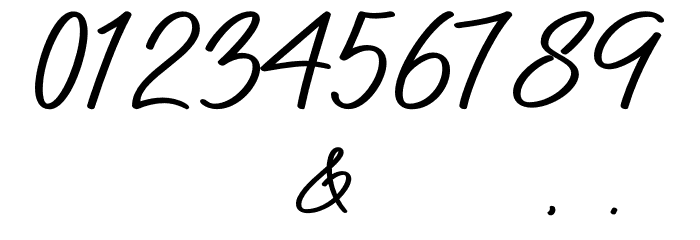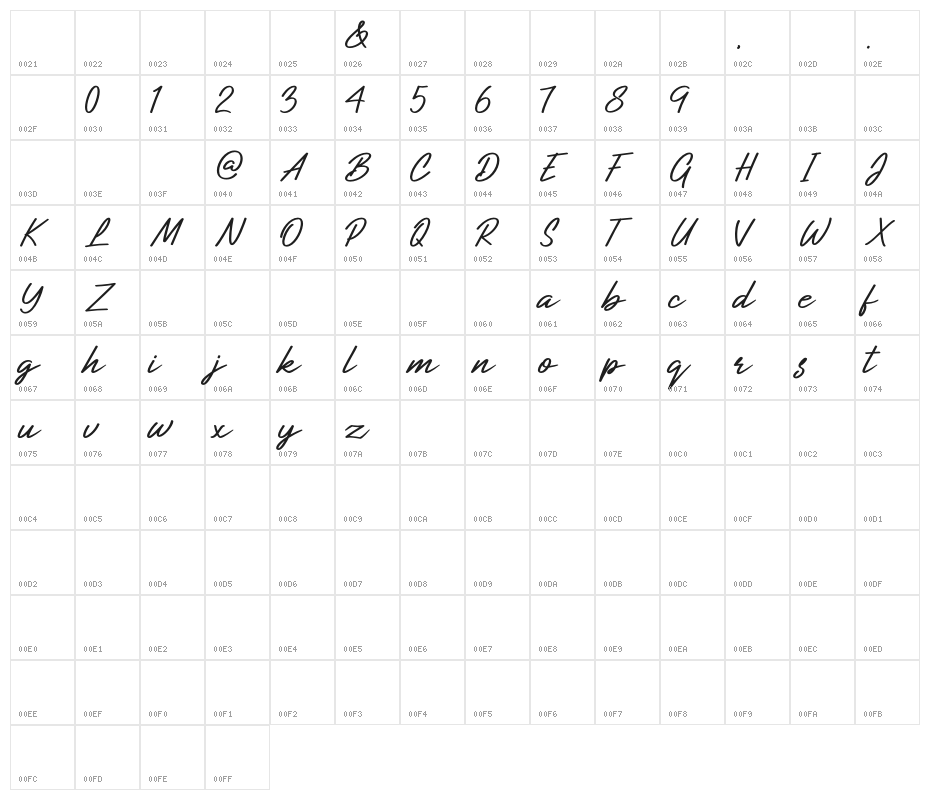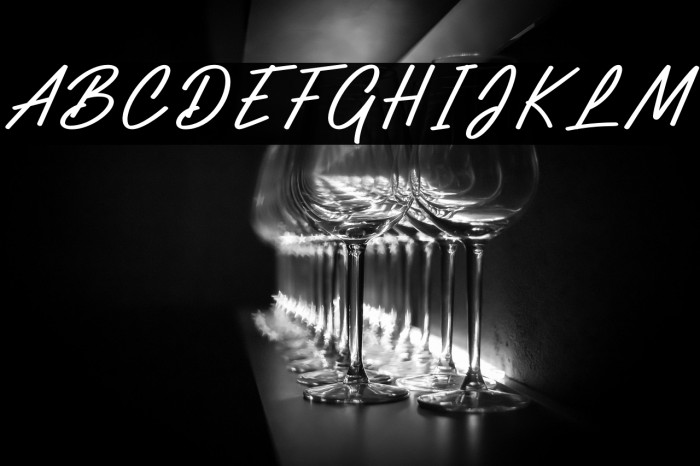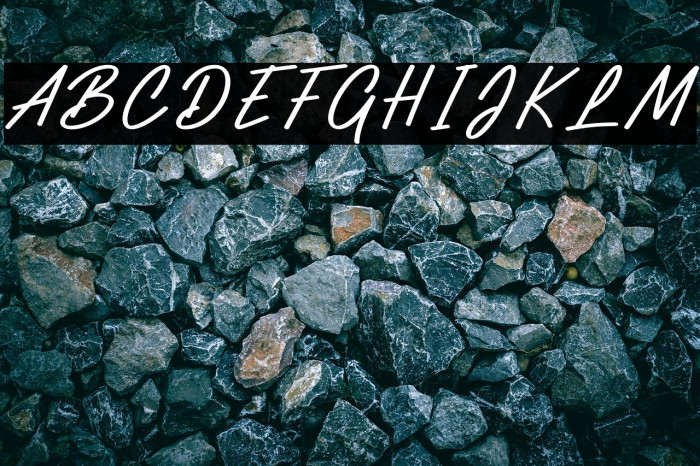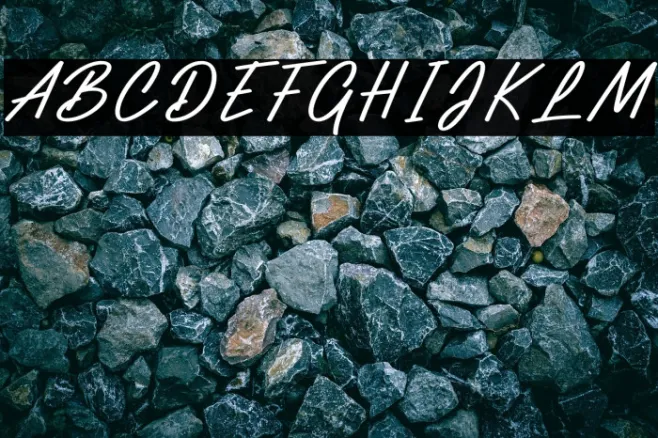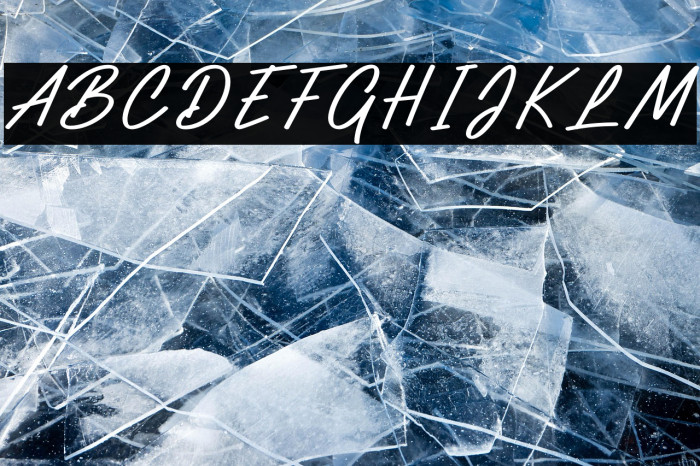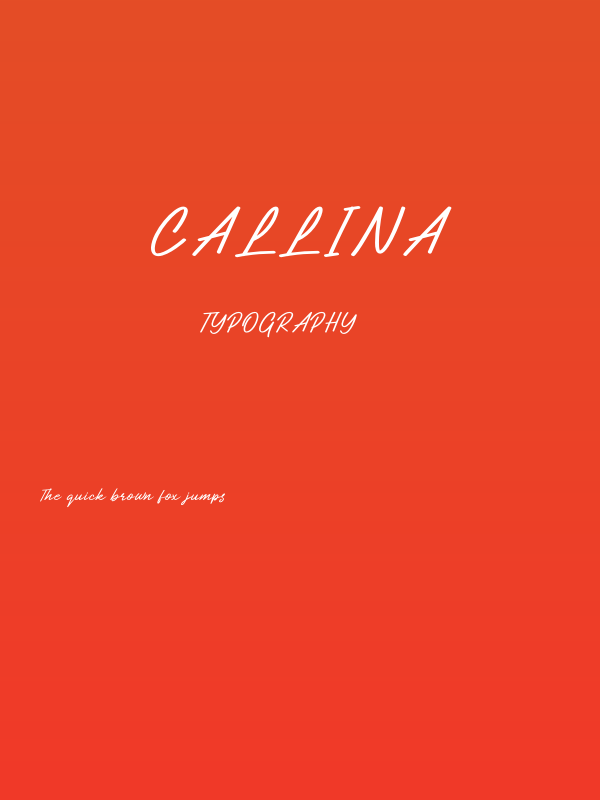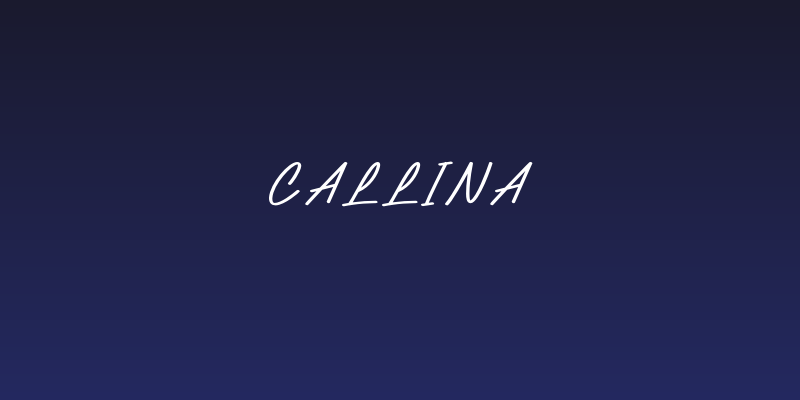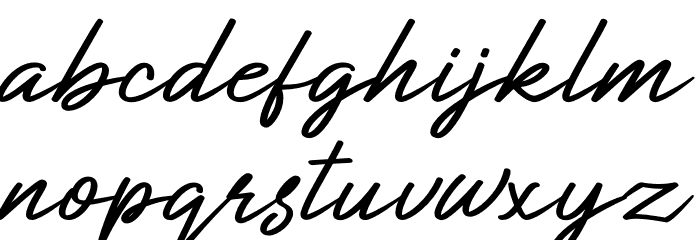
Callina Font
Callina Description
This font exudes elegance and fluidity, characterized by its smooth, cursive style that mimics natural handwriting. The letters are connected, creating a seamless flow that enhances readability while maintaining a sophisticated appearance. The strokes are moderately thick, providing a balanced contrast that ensures clarity without overwhelming the eye. This script font is versatile, suitable for both formal and informal contexts, and it brings a personal touch to any design. The numerals and special characters are crafted with the same attention to detail, ensuring consistency throughout. Its graceful curves and stylish flair make it ideal for projects that require a touch of elegance and personality.
| Use Case | Logos, Invitations, Personal branding |
| Proposed Projects | Ideal for wedding invitations, greeting cards, personal branding, and elegant packaging designs. |